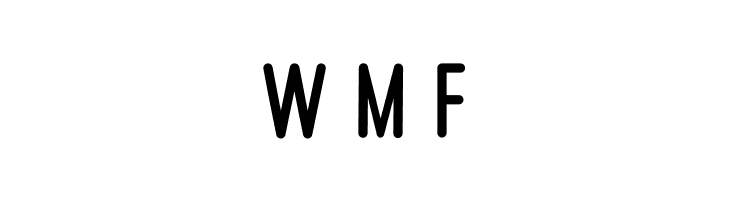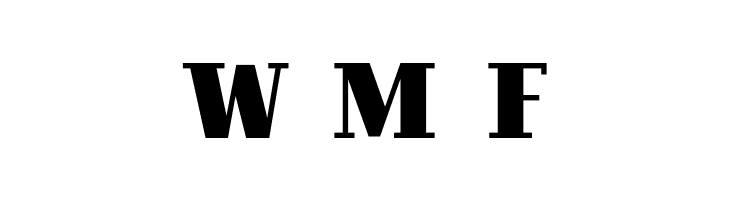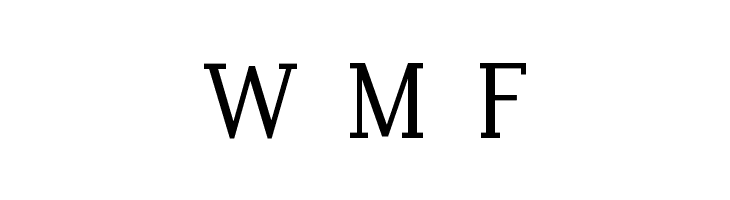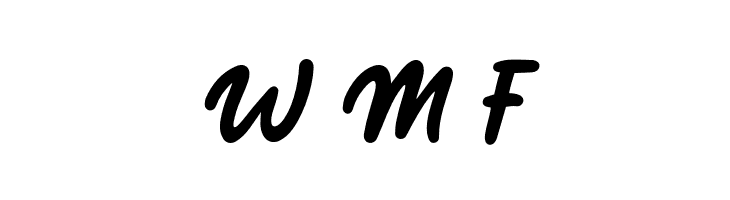
A bold serif font with strong strokes and classic elegance.
A classic serif typeface with elegant strokes and balanced proportions.
A flowing, cursive font with elegant, connected letters and dynamic strokes.
A lively, cursive font with a handwritten touch and elegant flow.
A bold, playful script font with a lively, handwritten style.
A bold, geometric font with a futuristic and digital aesthetic.
A geometric, futuristic font with a grid-like, angular design.
A modern, rounded sans-serif font with a friendly and approachable style.